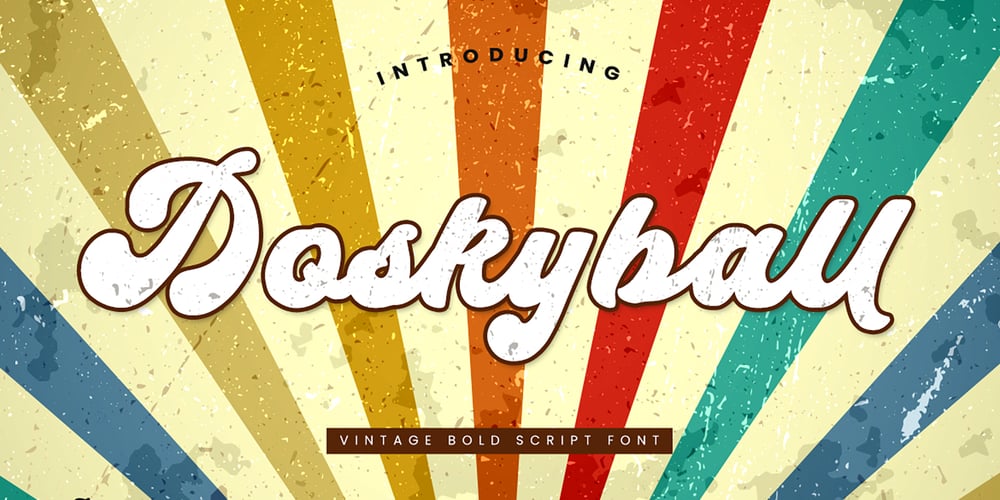
Doskyball Font Family was designed by Tezar Tantular and published by Keristyper Studio. Doskyball contains 1 styles and family package options. Introducing a new retro pop script called Doskyball Inspired by ’70s script letters. This font is good for logo design, Social media, Movie Titles, Books Titles, short text even long text letters, and good for your secondary text font with sans or serif.Featured: Standard Uppercase & Lowercase Numeral & Punctuation Multilingual : ä ö ü Ä Ö Ü ß ¿ ¡ Alternate & Ligature PUA encoded We recommend programs that support the OpenType feature and the Glyphs panel such as Adobe applications or Corel Draw. so you can use all the variations of the glyphs. Hope you enjoy our fonts!